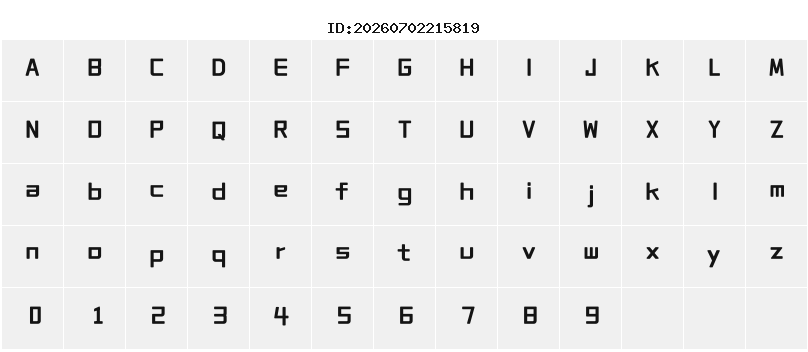
085-上首元气体 Preview
• Font Name: 085-上首元气体
• Manufacturer: 上首造字
About 085-上首元气体.ttf
085-上首元气体.ttf is a modern, elegant sans-serif font designed for ultimate readability and visual harmony. Perfect for branding, headlines, web design, and print materials.